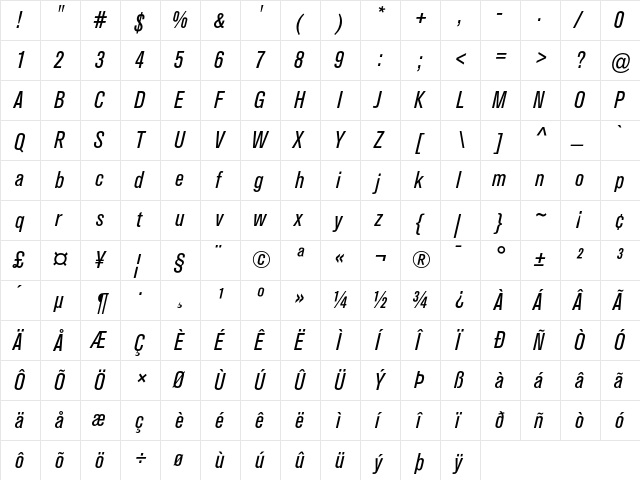
Akzidenz-Grotesk BQ Condensed Italic
Design Context for Akzidenz-Grotesk BQ Typeface
Akzidenz-Grotesk BQ has the quiet confidence of well-executed sans-serif typography: versatile, unobtrusive, and dependable at any size. The slanted form adds forward momentum and visual energy. The condensed width makes it efficient for tight spaces without sacrificing legibility.
Font Pairing: Works well alongside a characterful serif or display font that can carry the expressive load while Akzidenz-Grotesk BQ handles the functional copy.
Pro Tip: Try Akzidenz-Grotesk BQ in all-caps with moderate tracking for navigation and label copy — it performs well in systematic UI contexts.